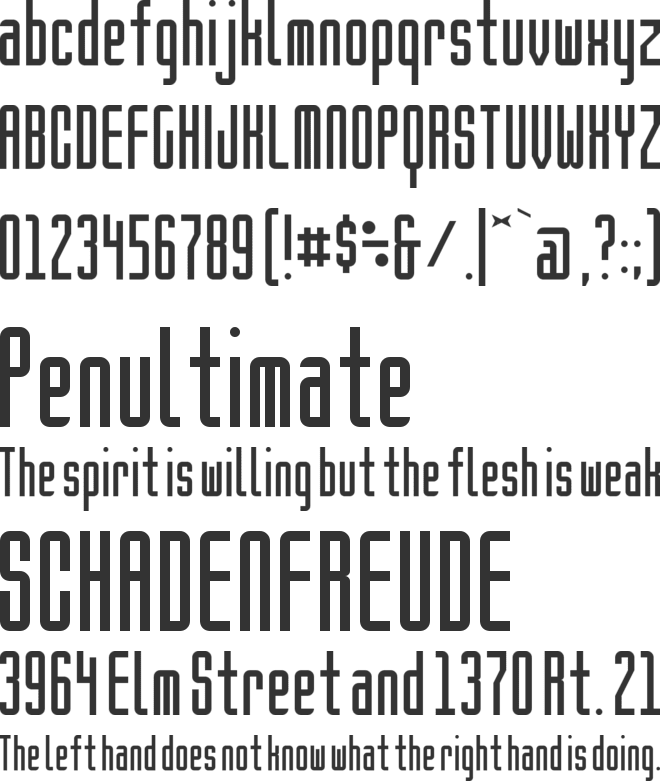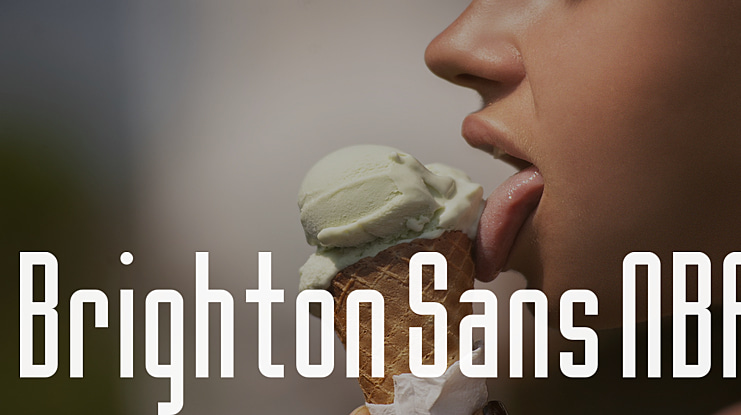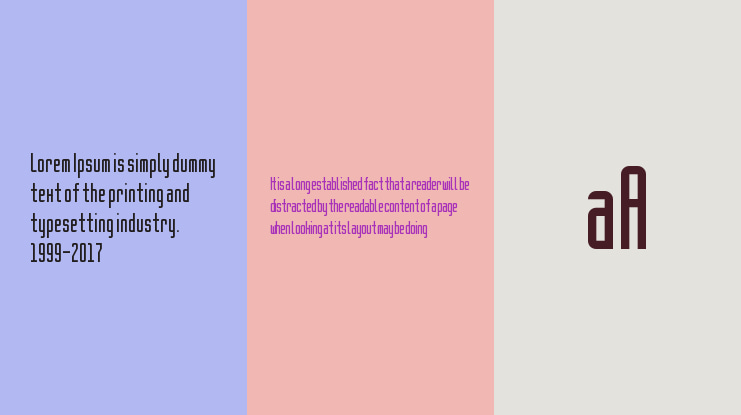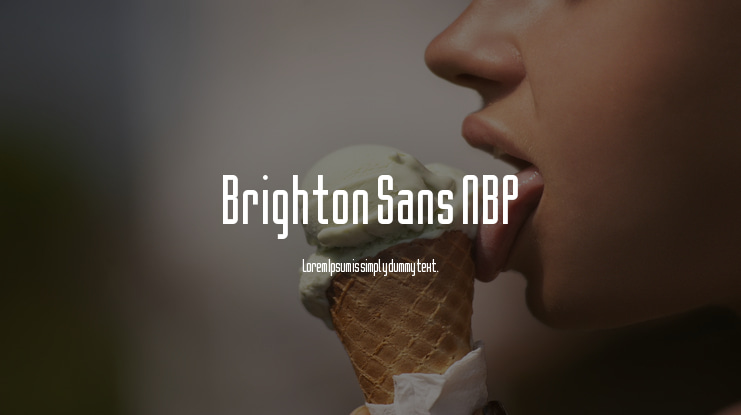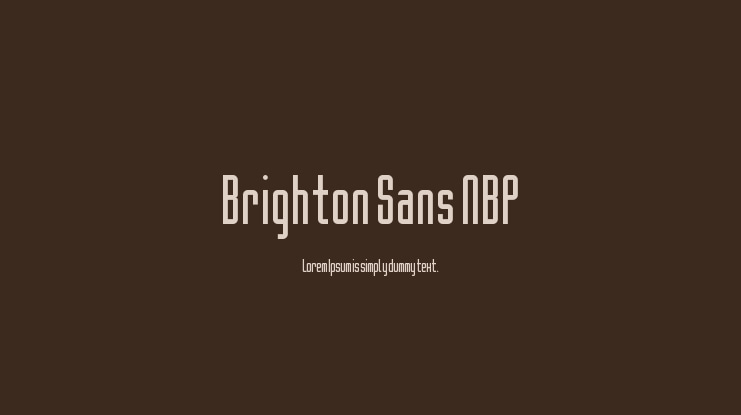
Brighton Sans NBP Font Family
Nate Halley
A narrow art-deco style design. Contains some Industria influence.
CHANGES IN VERSION 1.1: -Added 3 variations
CONTAINS: -Brighton Sans (formerly "Brighton NBP") -Brighton Serif -Brighton Square -Brighton SmallCaps